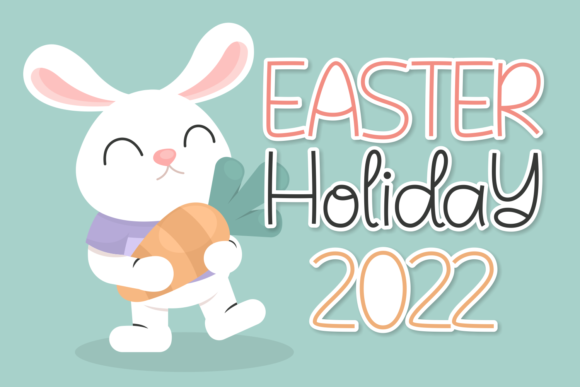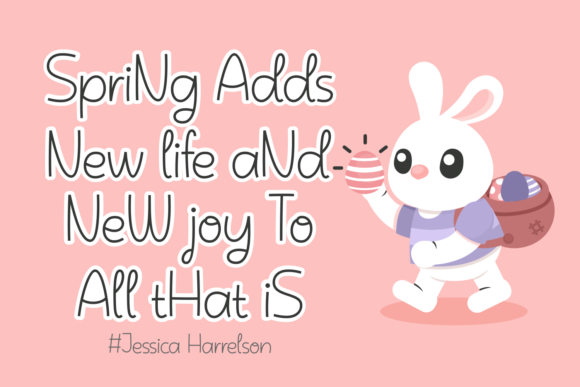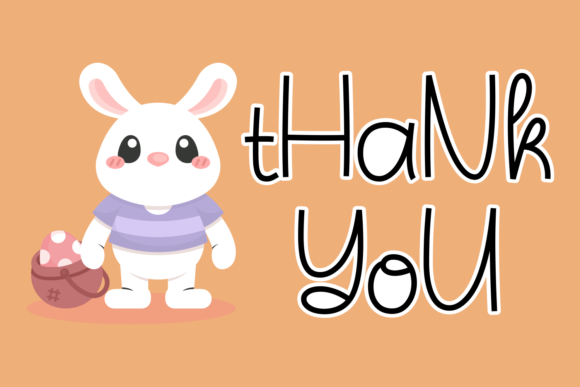
Introducing Gelora Easter Font: The Perfect Addition to Your Easter Designs
Are you looking for a beautiful and unique font to make your Easter designs stand out? Look no further than Gelora Easter Font, a cute minimalist handwritten font that’s perfect for creating gorgeous Easter cards, birthday invitations, quotes, posters, wall art, and more. In this article, we’ll take a closer look at Gelora Easter Font and explore its features, benefits, and uses.
What is Gelora Easter Font?
Gelora Easter Font is a calligraphy typeface that’s designed to add a touch of elegance and whimsy to your designs. This font is perfect for designers and crafters who want to create beautiful and eye-catching Easter-themed designs. With its minimalist and handwritten style, Gelora Easter Font is sure to capture the hearts of your audience.
Features of Gelora Easter Font
Gelora Easter Font comes with a range of features that make it perfect for Easter designs. Some of its key features include:
- Cute and minimalist design: Gelora Easter Font has a simple yet adorable design that’s perfect for Easter-themed designs.
- Handwritten style: This font has a handwritten style that gives it a personal and unique touch.
- Calligraphy typeface: Gelora Easter Font is a calligraphy typeface that’s designed to add a touch of elegance to your designs.
- Easy to read: Despite its elegant design, Gelora Easter Font is easy to read, making it perfect for quotes, posters, and other designs where readability is important.
Uses of Gelora Easter Font
Gelora Easter Font is a versatile font that can be used for a wide range of Easter-themed designs. Some of the most popular uses of this font include:
- Easter cards: Create beautiful and unique Easter cards with Gelora Easter Font.
- Birthday invitations: Use Gelora Easter Font to create adorable birthday invitations that will make your guests feel special.
- Quotes and posters: Add a touch of elegance to your quotes and posters with Gelora Easter Font.
- Wall art: Create stunning wall art with Gelora Easter Font that’s perfect for Easter-themed decorations.
- Nursery room designs: Use Gelora Easter Font to create adorable nursery room designs that will delight kids and parents alike.
Benefits of Using Gelora Easter Font
There are many benefits to using Gelora Easter Font for your Easter designs. Some of the most significant benefits include:
- Unique and eye-catching designs: Gelora Easter Font helps you create unique and eye-catching designs that will stand out from the crowd.
- Elegant and whimsical style: This font adds a touch of elegance and whimsy to your designs, making them perfect for Easter-themed designs.
- Versatile: This font can be used for a wide range of Easter-themed designs, making it a great addition to your font collection.
Tips for Using Gelora Easter Font
Here are some tips for using Gelora Easter Font to create stunning Easter designs:
- Experiment with different colors: Try out different colors and combinations to find the perfect look for your design.
- Use it with other fonts: Gelora Easter Font can be paired with other fonts to create a unique and eye-catching design.
- Add Easter-themed graphics: Add Easter-themed graphics, such as eggs, bunnies, and flowers, to create a festive design.
- Keep it simple: Don’t overcomplicate your design. Keep it simple and elegant to make the most of Gelora Easter Font.
Gelora Easter Font is a beautiful and unique font that’s perfect for creating stunning Easter designs. With its cute and minimalist design, handwritten style, and calligraphy typeface, this font is sure to capture the hearts of your audience. Whether you’re a designer or crafter, Gelora Easter Font is a great addition to your font collection. So why wait? Grab Gelora Easter Font today and start creating gorgeous Easter cards, birthday invitations, quotes, posters, wall art, and more!